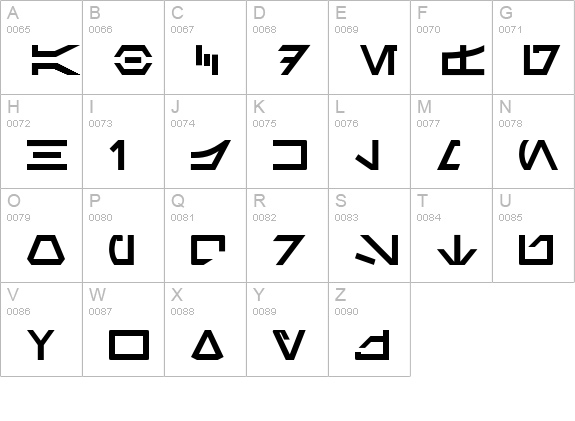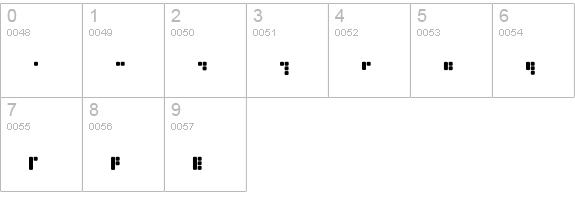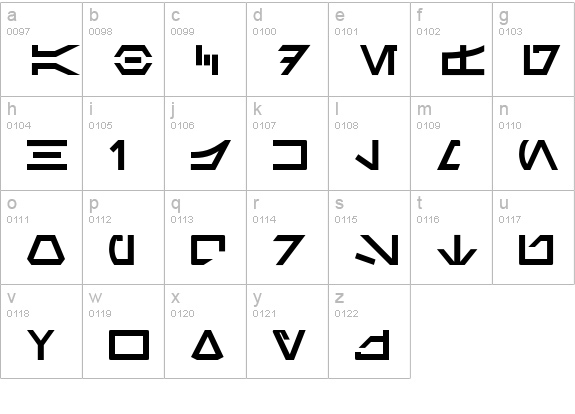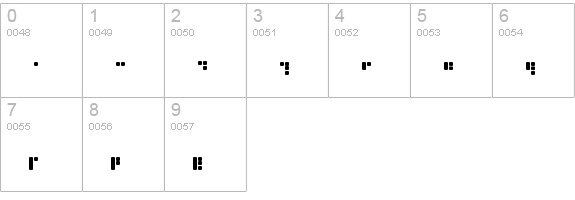
newAurabesh Font Details
Introducing the newAurabesh font - a stunning and futuristic typeface that combines elegance with a touch of modernity. This captivating font features sleek lines and sharp edges, making it perfect for a wide range of design projects. Whether you are creating a logo, poster, website, or any other visual content, newAurabesh is sure to make a bold statement. The best part is that newAurabesh is completely free to download! You can get your hands on this amazing font at FontsMarket.com, where you can find a wide selection of high-quality fonts for all your creative needs. Don't miss out on the opportunity to add newAurabesh to your font collection and elevate your designs to the next level. Download it today and let your creativity soar!